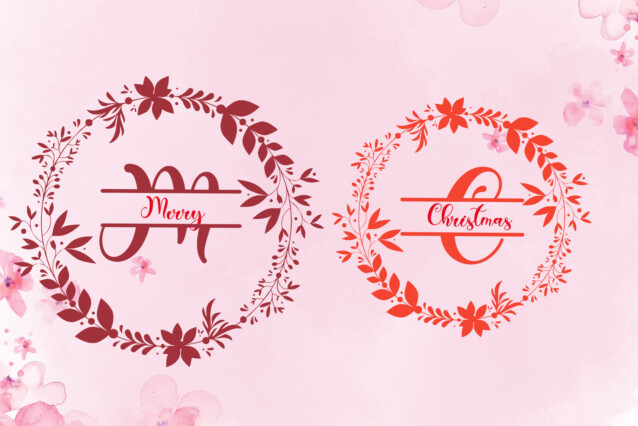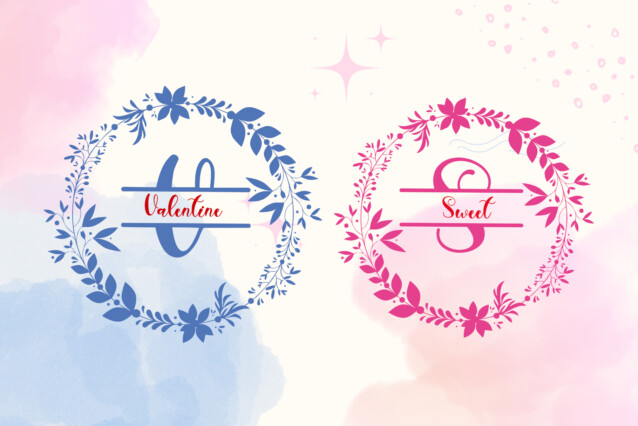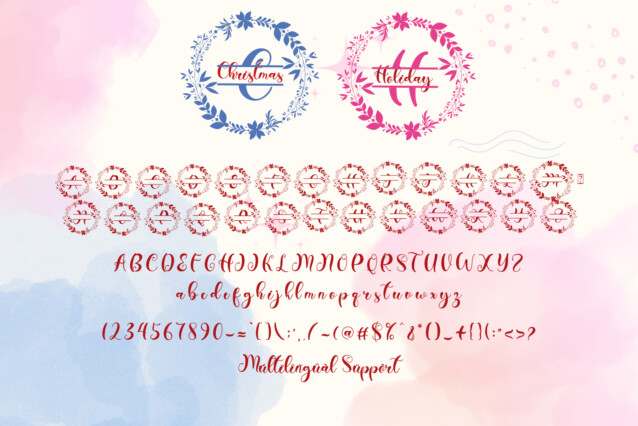
Christmas Holiday Monogram Font
Christmas Holiday Monogram Font is a beautiful and natural monogram font. This font is equipped with a floral decorative monogram, so it is very suitable for Christmas, Valentine’s, winter, wedding invitations, weddings, engagements and others. Equipped with uppercase letters, lowercase letters, numerals, punctuations, monograms and multilingual support.